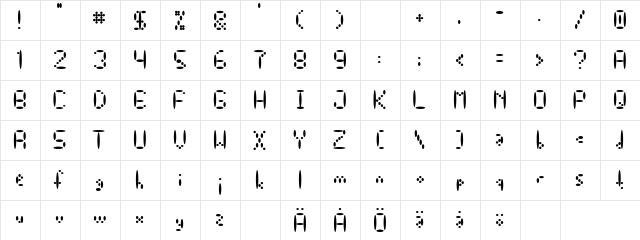
Else Regular Font Preview
Else Regular
Else Regular Font Details
Design Context for Else Typeface
Else offers clean, dependable letterforms without strong stylistic allegiance, making it a practical choice for designers who need flexibility.